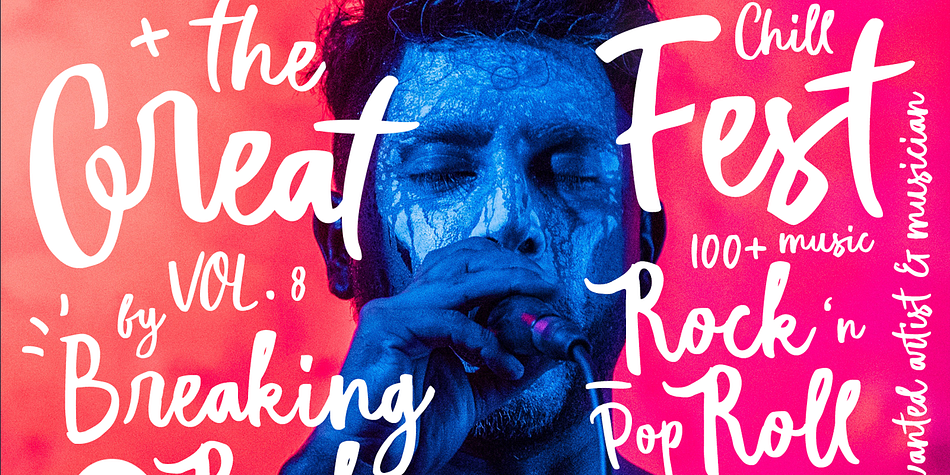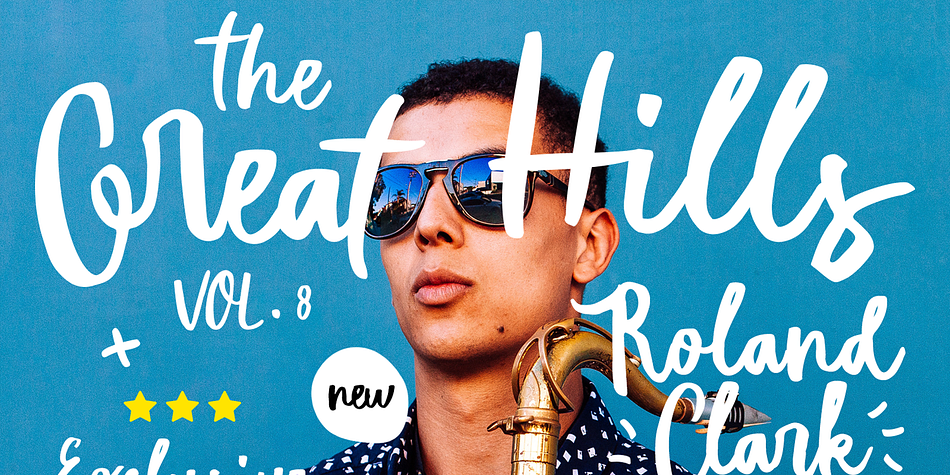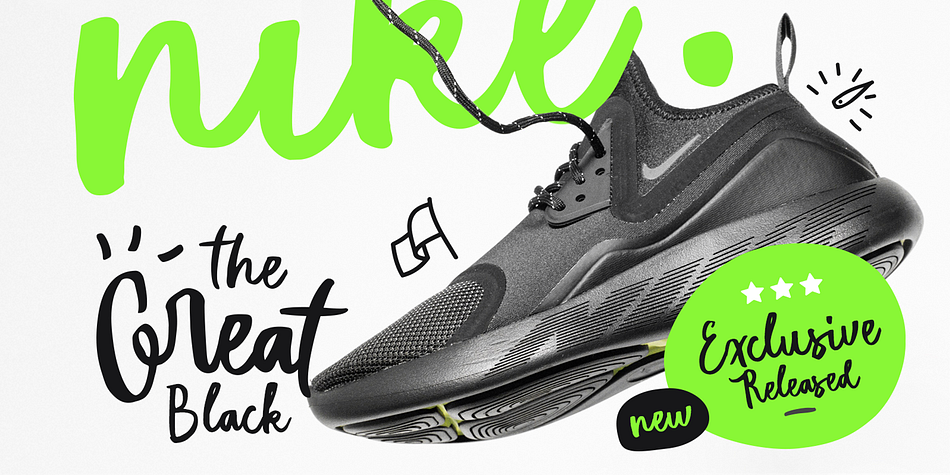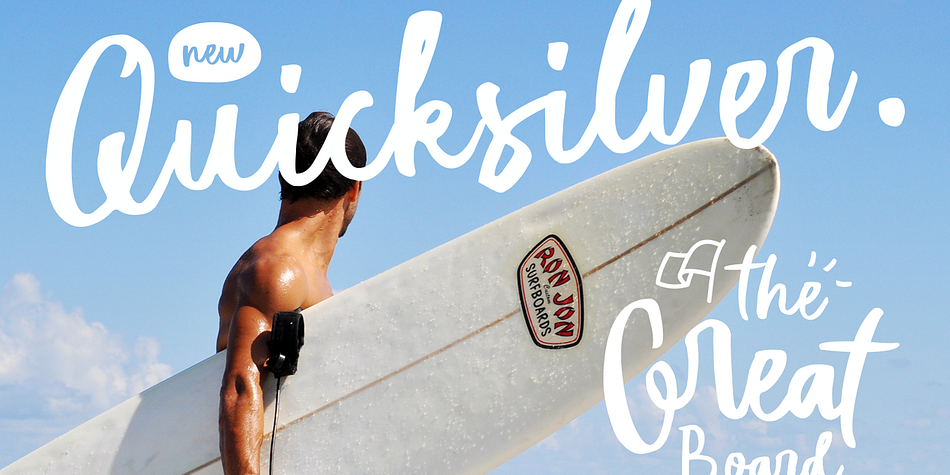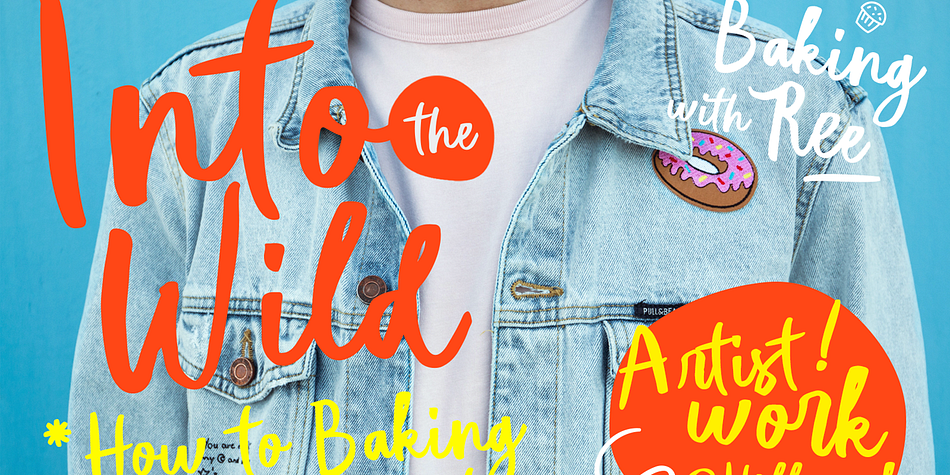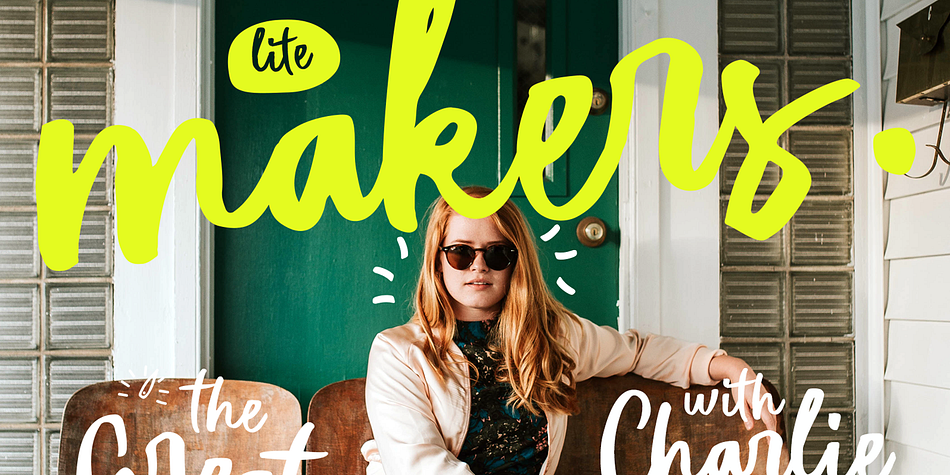
Hillmark is a hand drawn, brush script and modern calligraphy font published by Firman Ananda.
Meet Hillmark, a brand new typeface from Tyfomono. Designed to fulfil your trend-catching things with the edgy style and undeniable artsy look. Perfectly fit for your fashion branding stuff, magazine, handwriting logo, inspirational quote poster, oh well you name it.